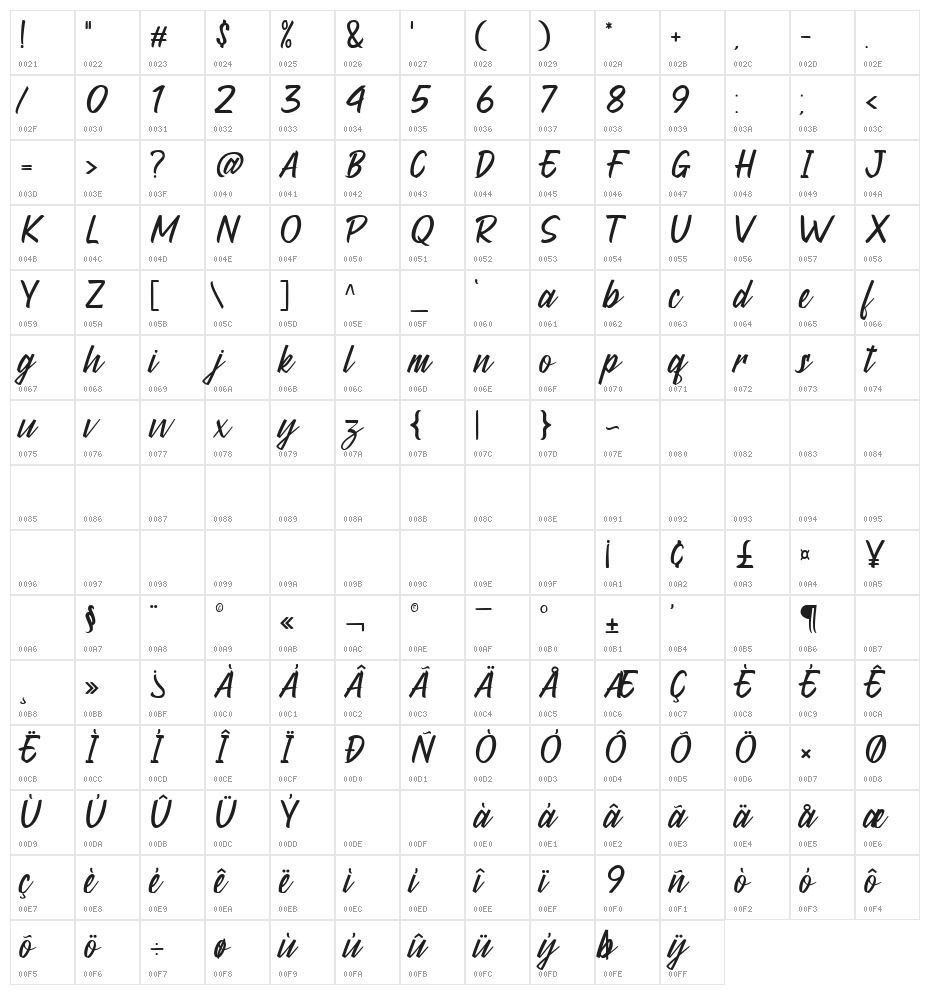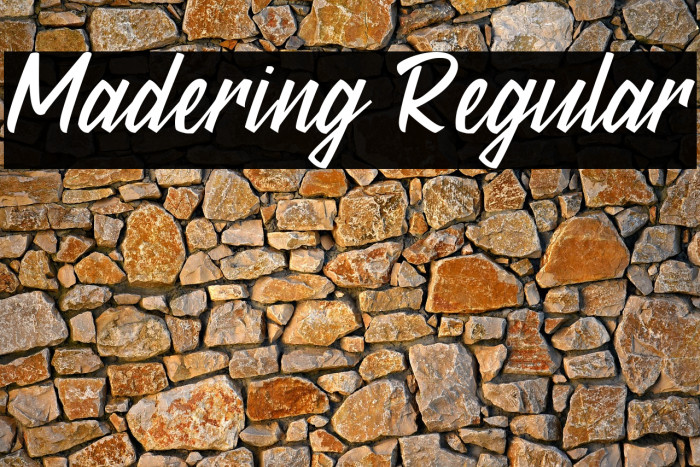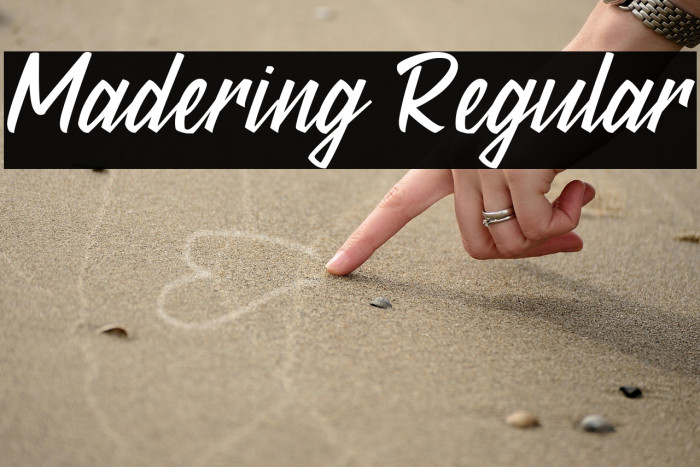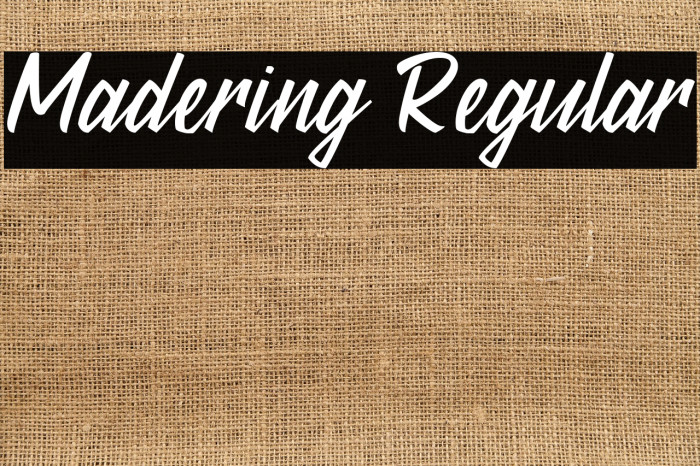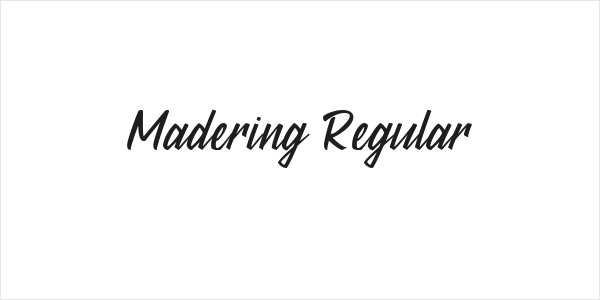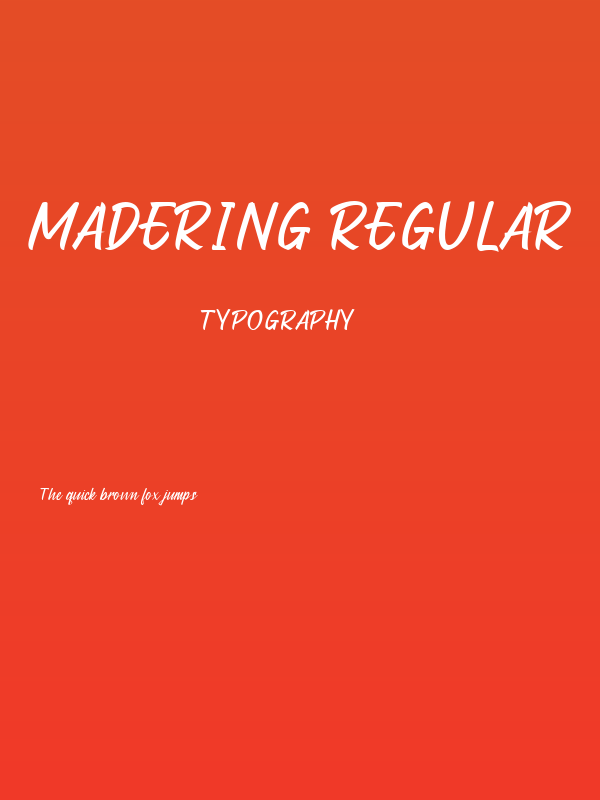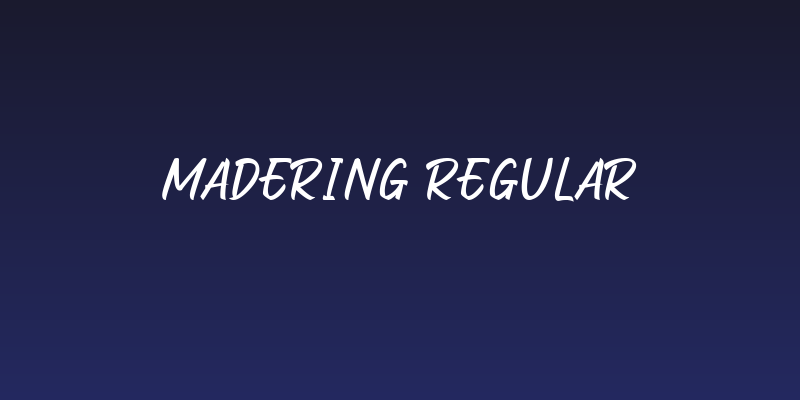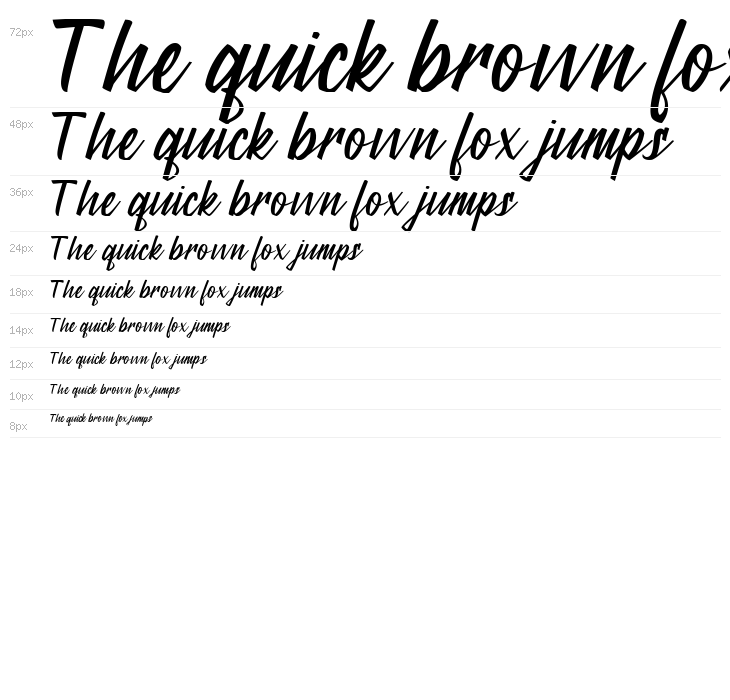
Madering Regular Font
Madering Regular Description
This font features a dynamic and flowing script style, characterized by its elegant and slightly slanted letterforms. The uppercase letters are bold and prominent, while the lowercase letters maintain a consistent fluidity, enhancing readability. The numerals are well-balanced, complementing the overall aesthetic. Special characters are crafted with the same attention to detail, ensuring they integrate seamlessly with the rest of the typeface. The strokes are moderately thick, providing a medium contrast that adds to the font's legibility and visual appeal. This typeface exudes a sense of modern sophistication, making it suitable for a variety of creative applications.
Use CaseLogos, Invitations, Branding
Proposed ProjectsIdeal for branding, invitations, greeting cards, and elegant signage.